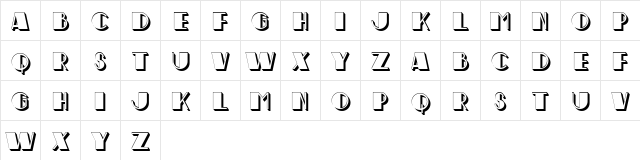
Scar Race Regular Free Font
Scar Race Regular
Design Context for Scar Race
Scar Race is a composed and adaptable typeface that performs quietly and consistently across a wide range of design contexts.
Pro Tip: Use Scar Race in both headline and body roles to test its range before committing to a single application.